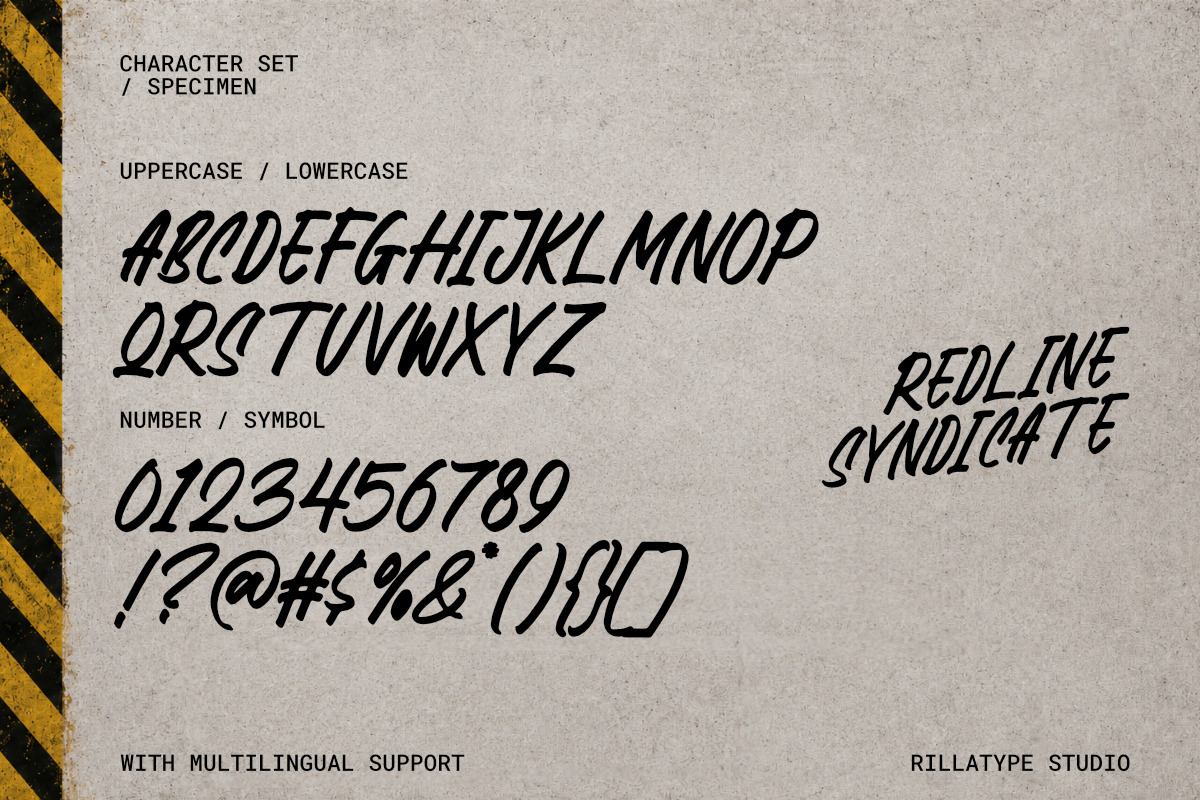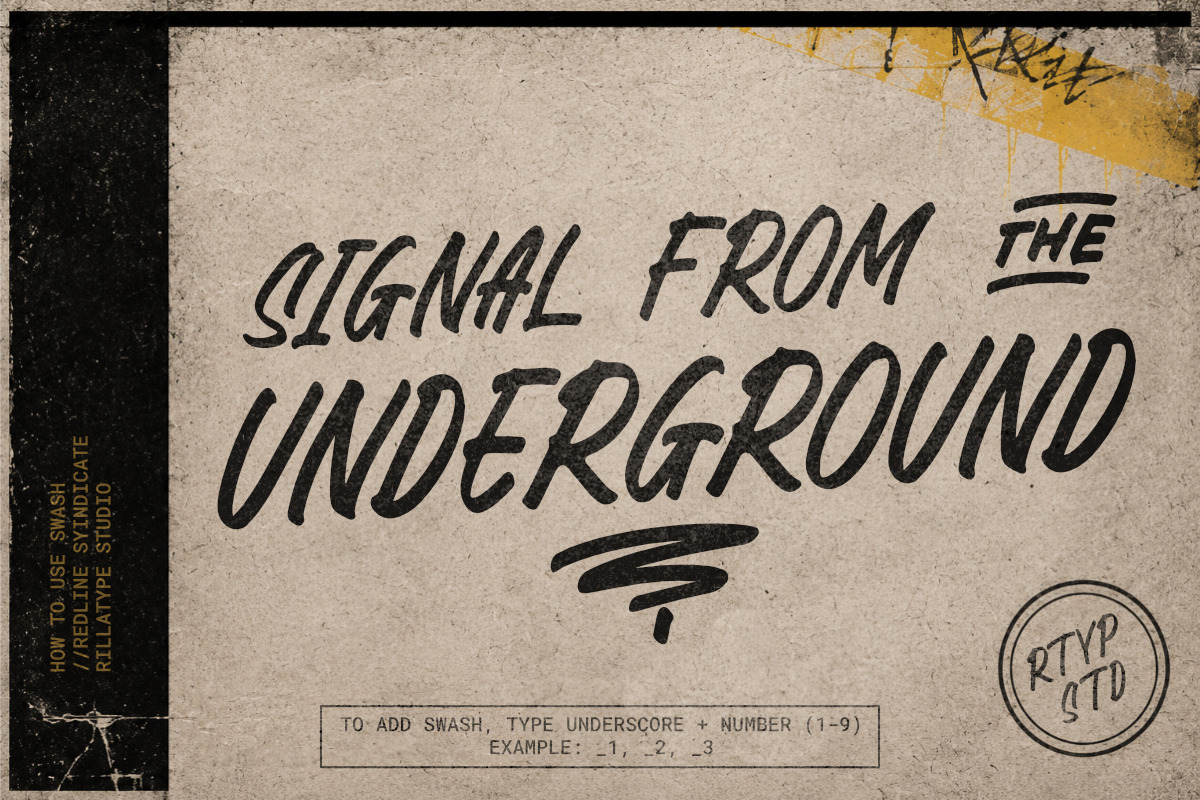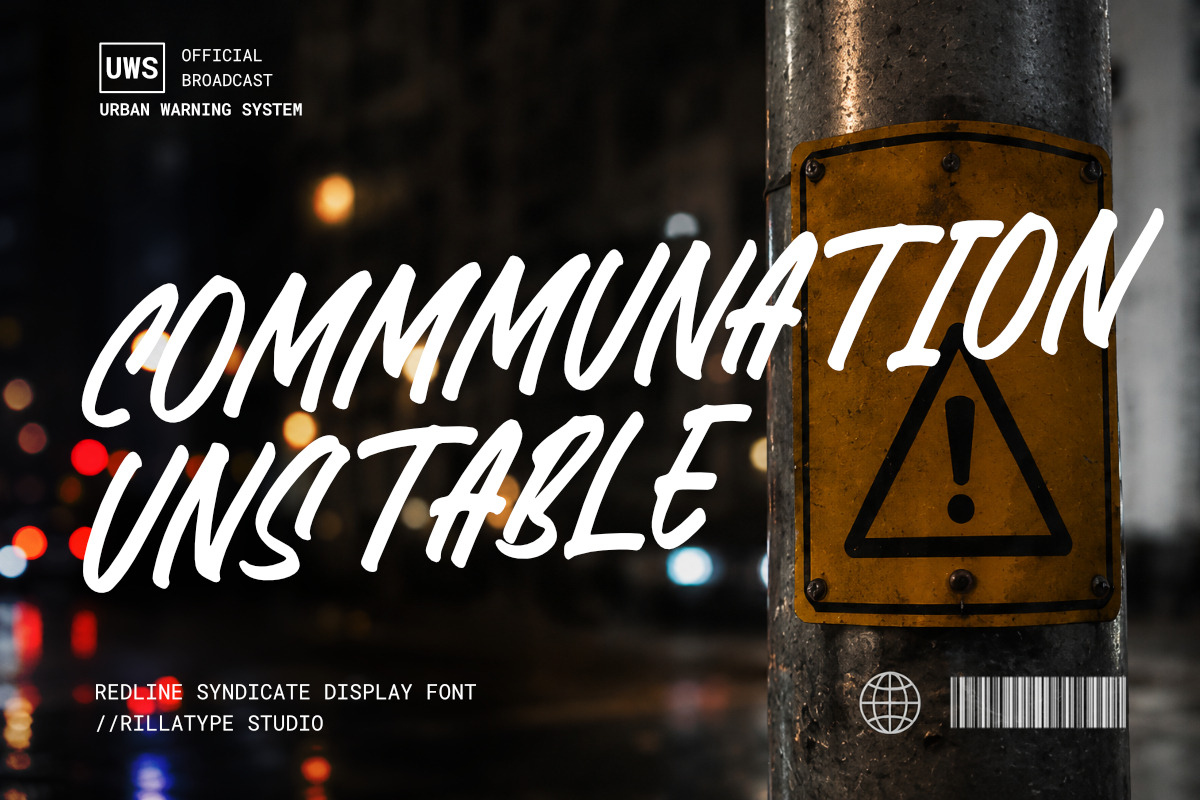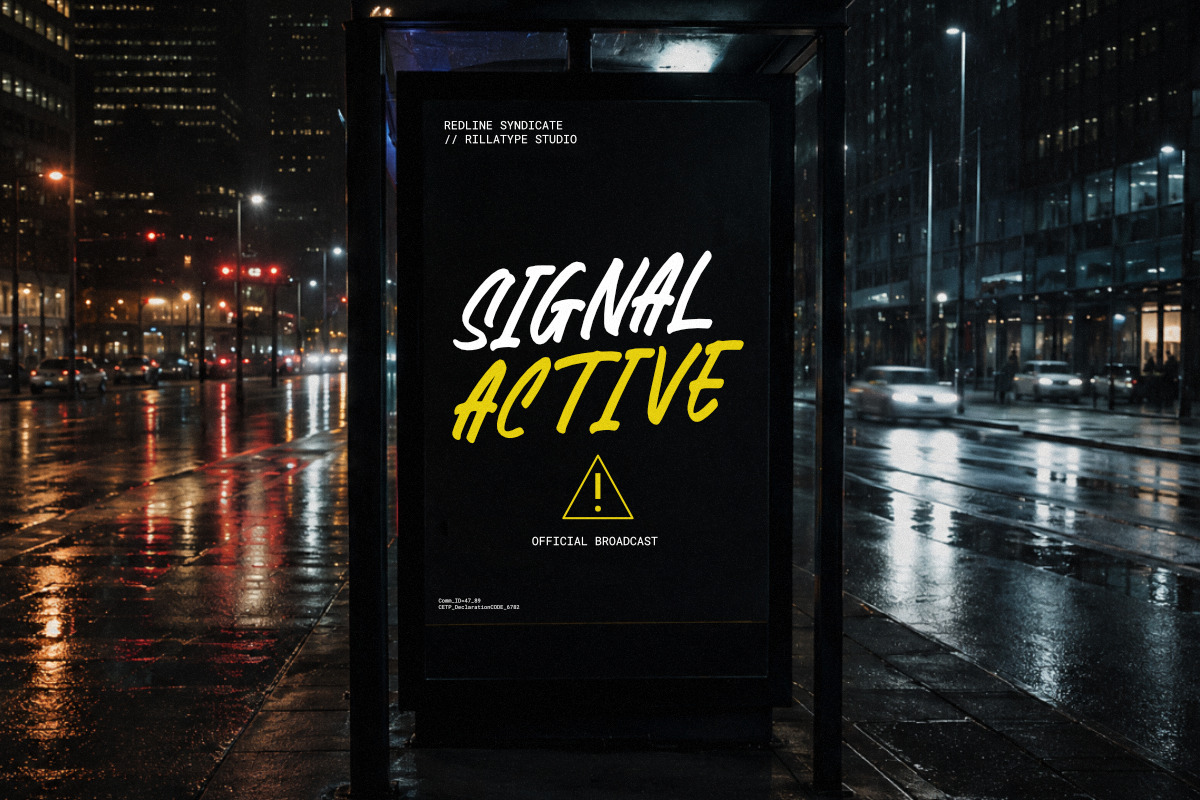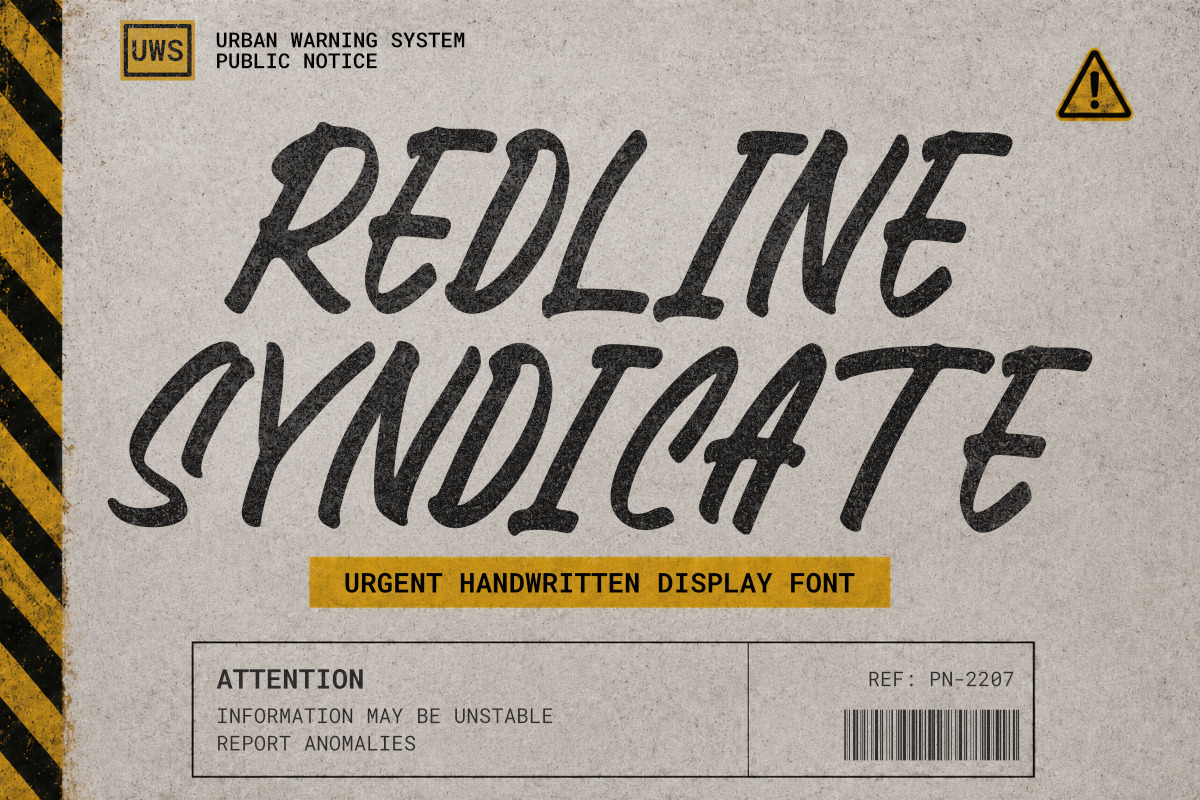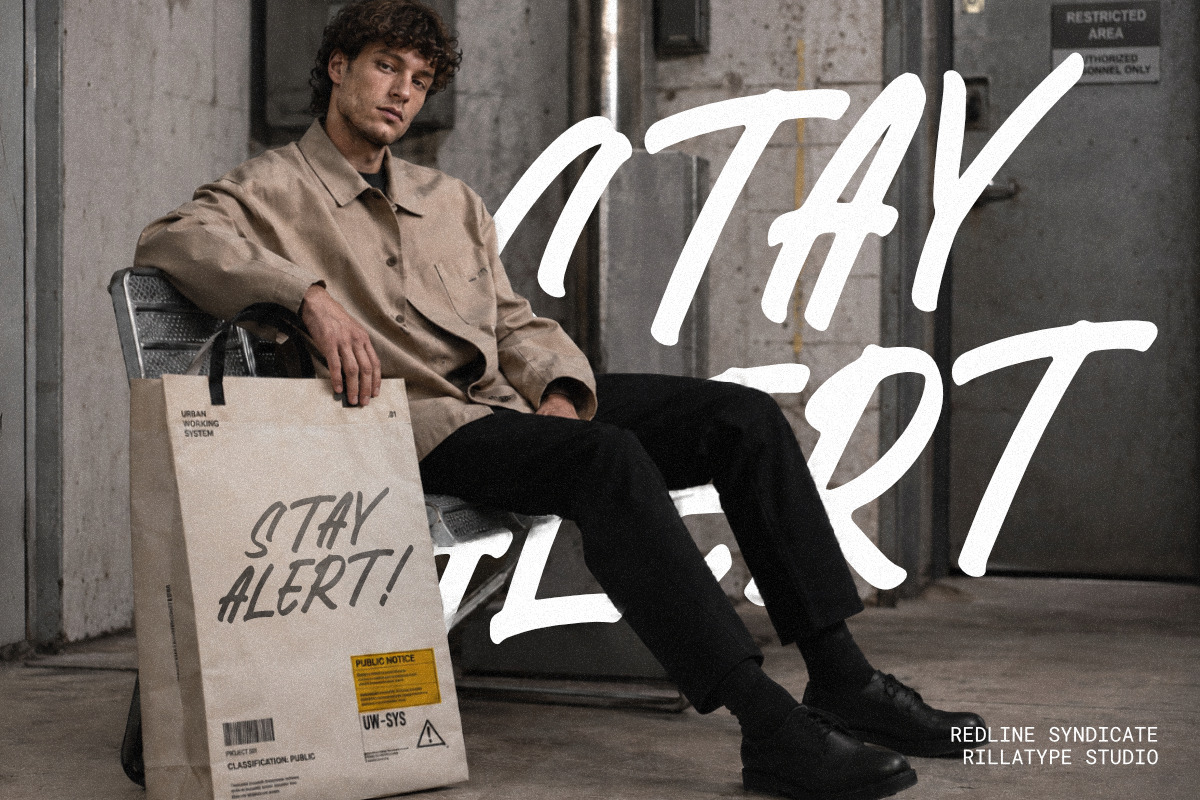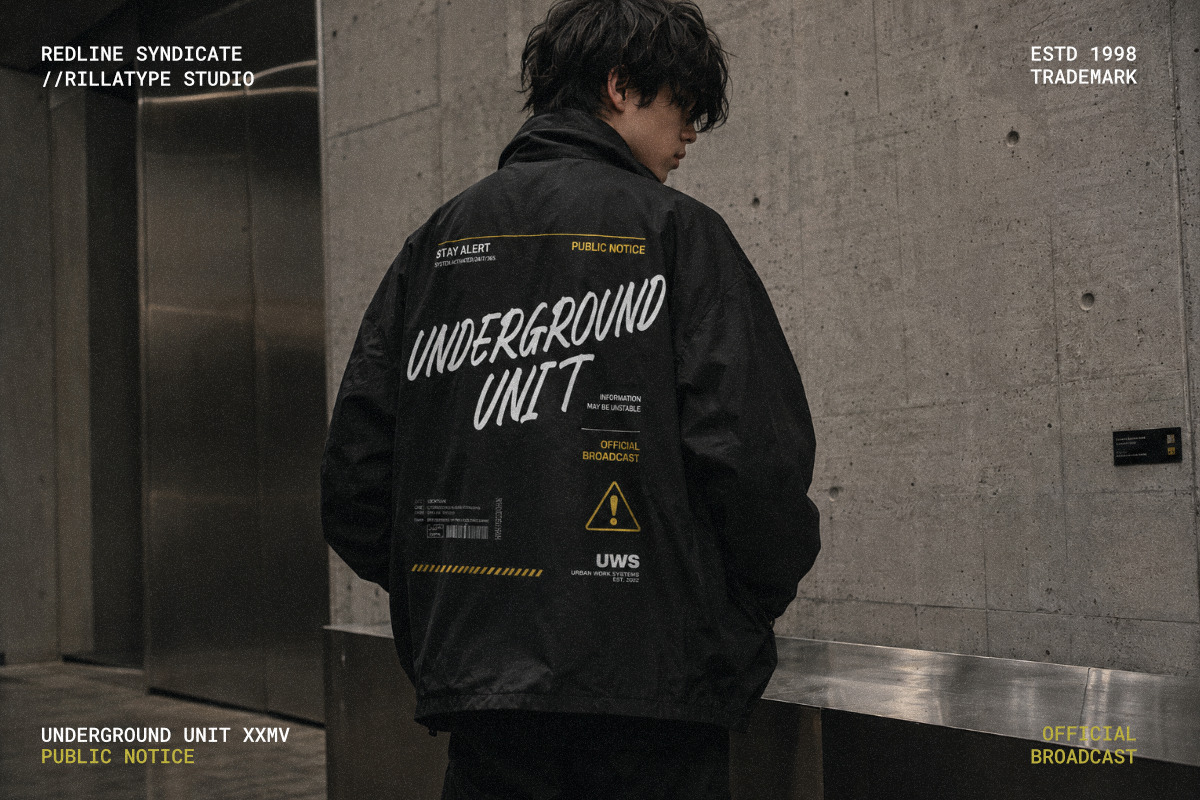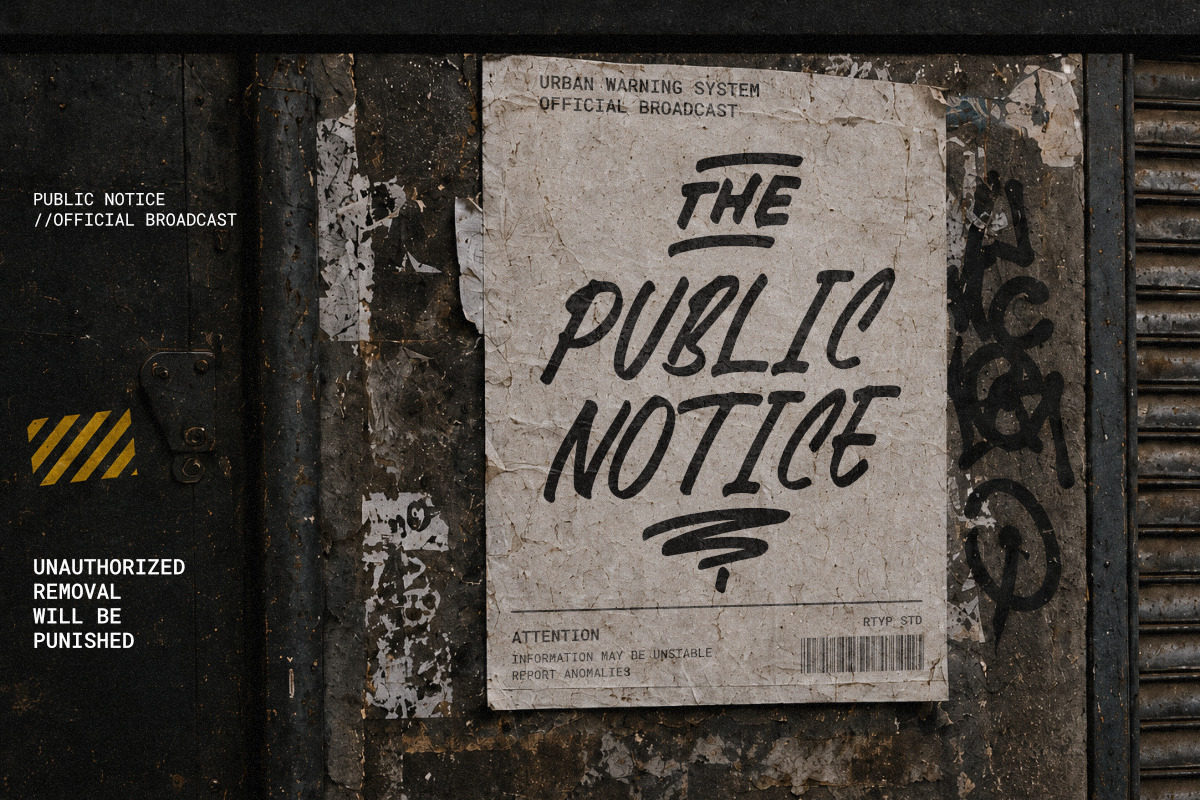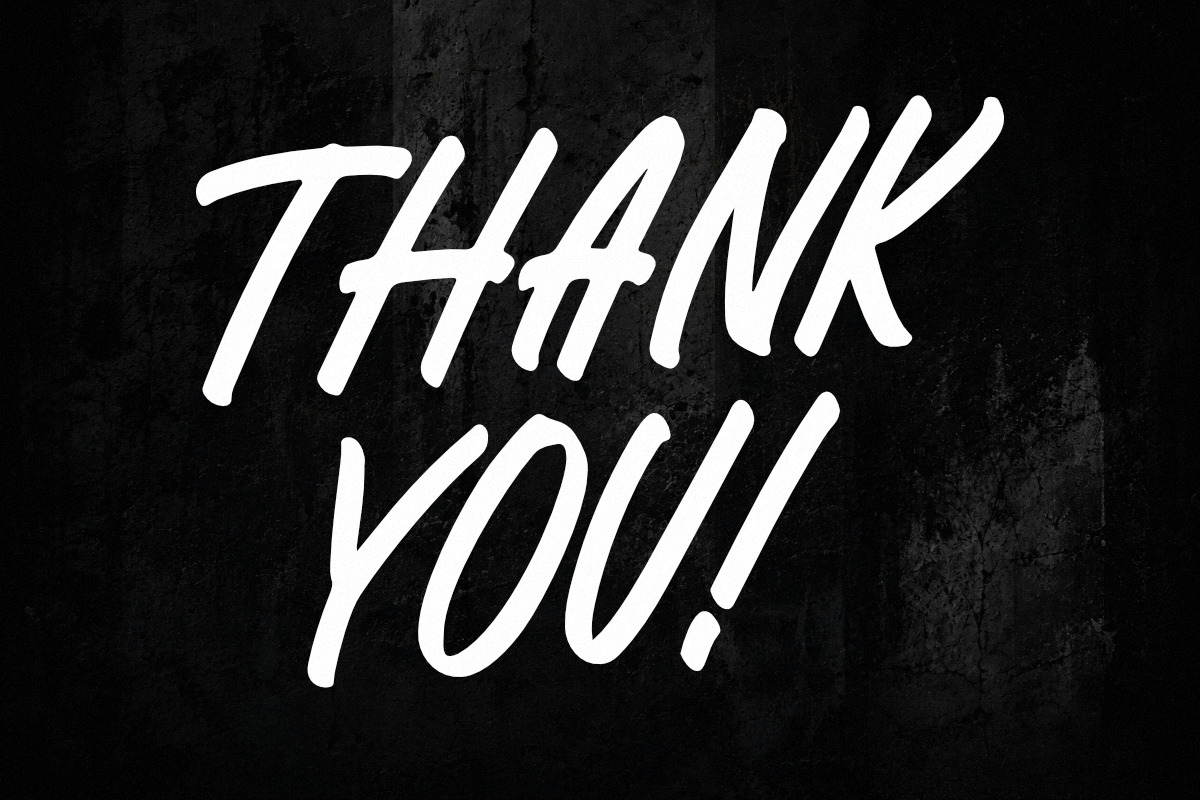
Redline Syndicate Display Font
Redline Syndicate is an urgent handwritten display font built for bold messages, underground visuals, and high-impact design work. With its raw slanted strokes, expressive hand-drawn character, and fast-moving energy, this font brings a strong sense of motion, tension, and attitude to every layout.
Inspired by urban warning systems, public broadcast posters, industrial signage, and underground visual culture, Redline Syndicate is perfect for designers who want typography that feels loud, direct, and unforgettable. Its imperfect handwritten style gives your work a human, rebellious, and authentic edge while still staying bold and readable for display use.
Use it for poster design, apparel graphics, streetwear branding, zine covers, music artwork, packaging, stickers, social media graphics, editorial layouts, and experimental visual identities. Whether you are creating a public notice poster, a gritty brand campaign, or a strong typographic statement, Redline Syndicate is made to stand out.